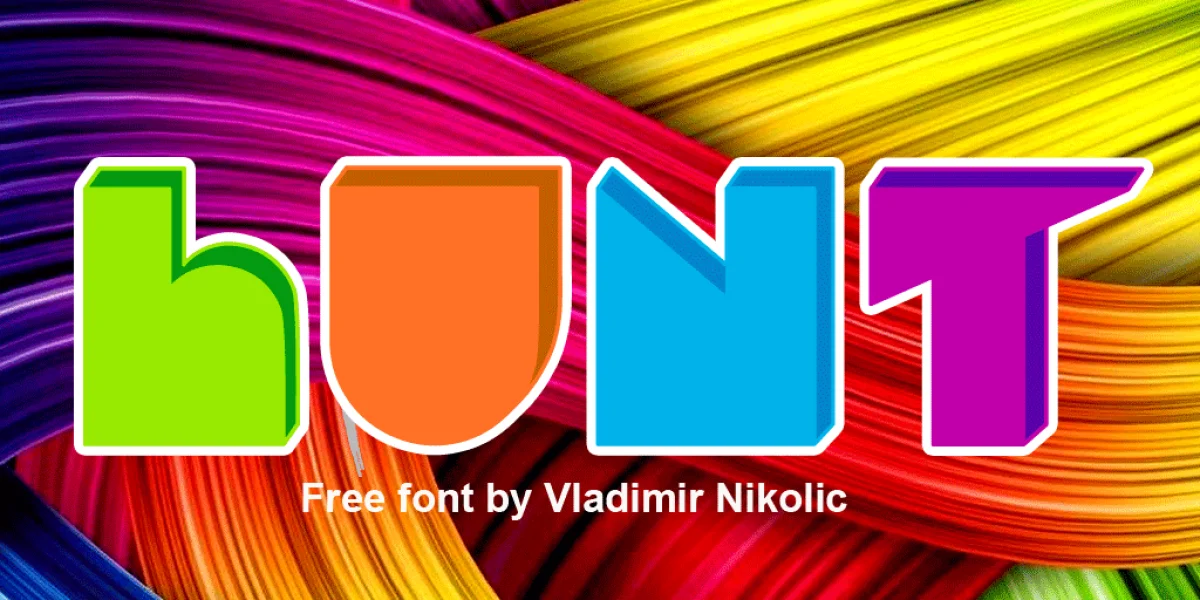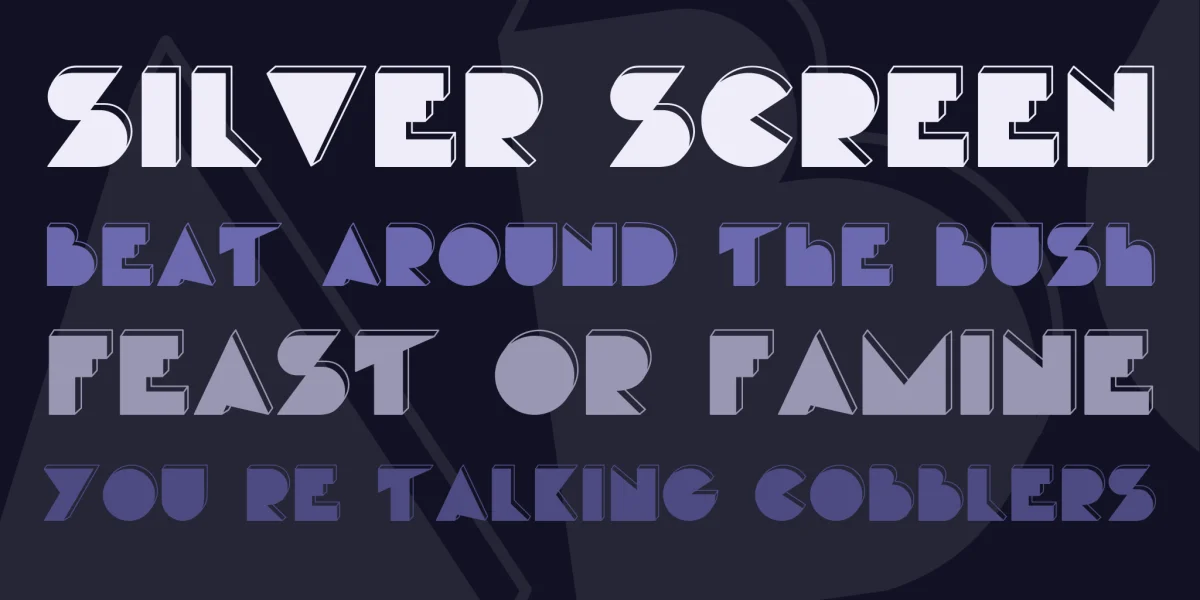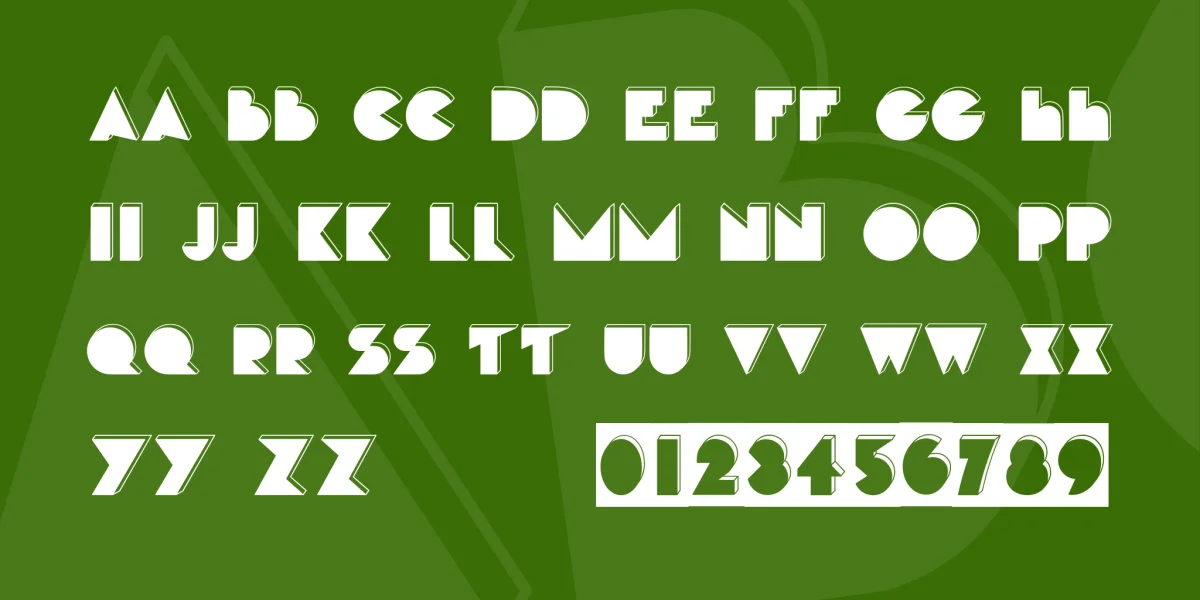
Fat blocky minimalistic font, great for 3d artworks,all kind of posters, flyers even t-shirts.
It is a vectorized version of typography from 1930 book of Hunt Brothers "Lettering of Today" (Page 25)